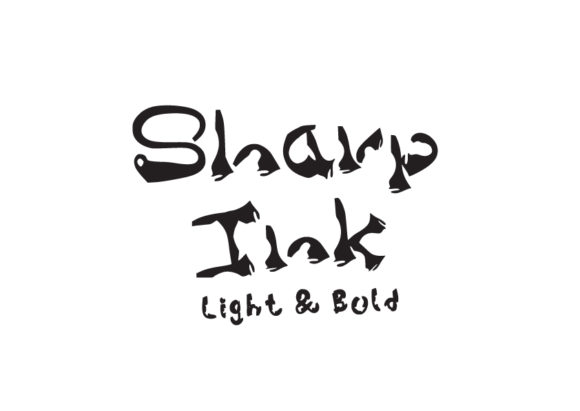
Prepare to be mesmerized by the Sharp Ink Font, a captivating and distinctive display font that will transform your designs into mesmerizing masterpieces. Unleash your creativity with this hand-drawn wonder, meticulously crafted by GraphicsBam Fonts.
Sharp Ink is not just a font; it's an experience that ignites your imagination. Its bold and dynamic strokes dance across your designs, creating an unforgettable visual impact that captures the attention of your audience. Whether you're crafting social media posts, designing eye-catching logos, or creating stunning marketing materials, Sharp Ink will elevate your work to new heights.
Step into a world of unlimited possibilities, where your words and designs come alive with Sharp Ink. This remarkable font is the perfect choice for Facebook videos, adding a unique and engaging touch that will leave your viewers spellbound. Its distinct character effortlessly captivates, leaving a lasting impression that keeps your audience coming back for more.
With Sharp Ink, you'll discover a versatile font that seamlessly adapts to a wide range of design projects. From bold headlines that command attention to intricate illustrations that tell stories, Sharp Ink is your go-to font for creating exceptional visuals. Its hand-drawn charm adds a personal touch, evoking a sense of authenticity and connection with your audience.